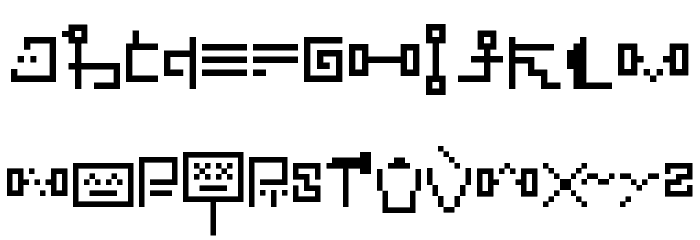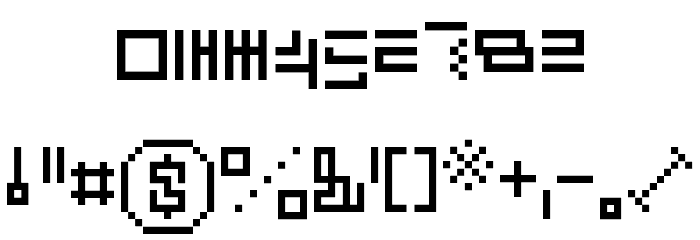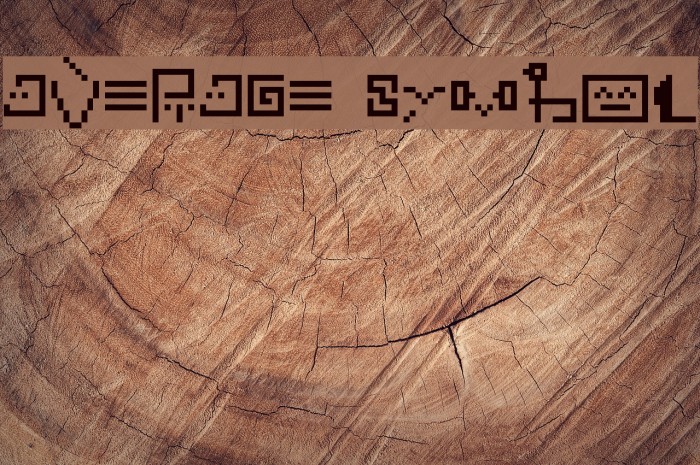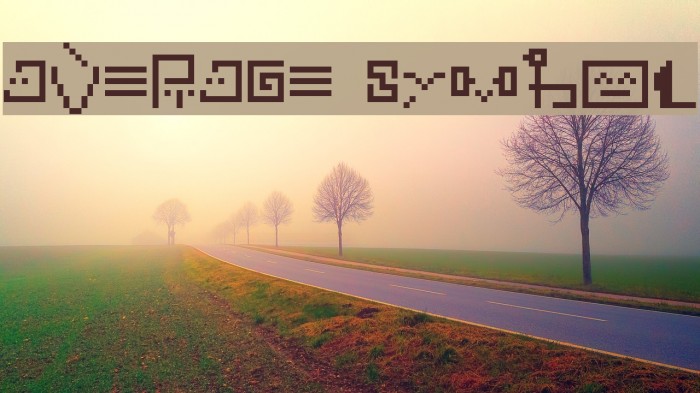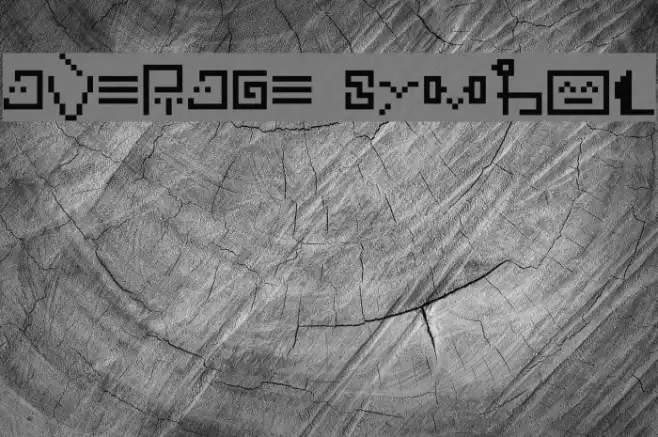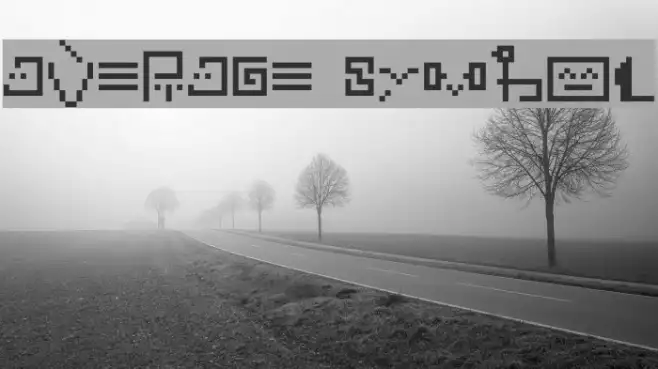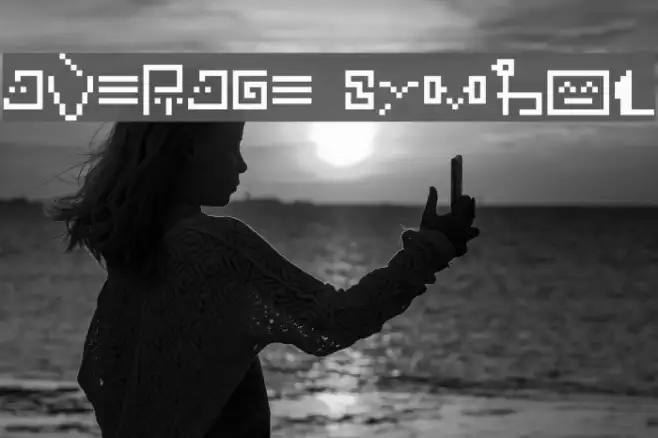
Average symbol Font
This font features a highly decorative and abstract design, with each character resembling a unique symbol or pictogram. The characters are composed of bold, pixelated lines, giving them a digital or retro video game aesthetic. The uppercase letters are particularly intricate, with geometric shapes and patterns that make each letter stand out as a distinct visual element. The lowercase letters continue this theme, maintaining the bold and blocky style. Numbers and special characters are equally stylized, with some resembling abstract art more than traditional alphanumeric characters. This font is not meant for readability but rather for artistic or thematic purposes, where the visual impact is more important than legibility.
A decorative, pixelated font with abstract, symbol-like characters.
- Proposed Projects: Ideal for video game design, digital art projects, or any creative work requiring a retro or abstract aesthetic.
- Overall Style: Retro, Abstract
- Use Case: Logos, Artistic projects, Thematic designs